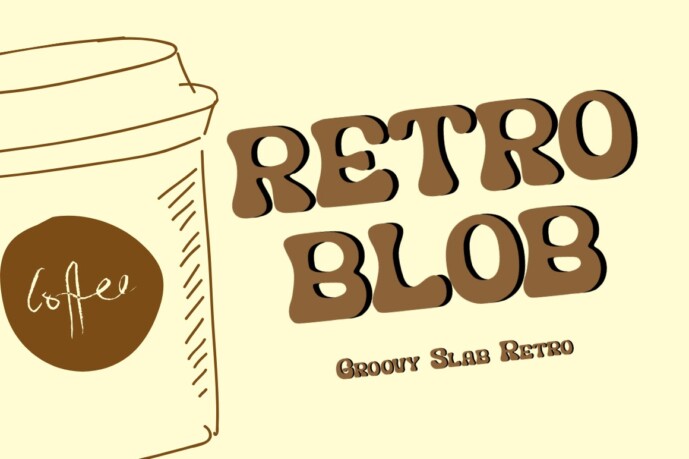
Retroblob Font
Designer: Arzaq's Studio
Retroblob is a bold slab-serif display font with retro curves and funky energy. Its chunky structure and softened edges make it perfect for vintage posters, branding with a retro twist, or any design seeking to channel bold 70s-80s nostalgia. Eye-catching and charismatic with a playful edge.